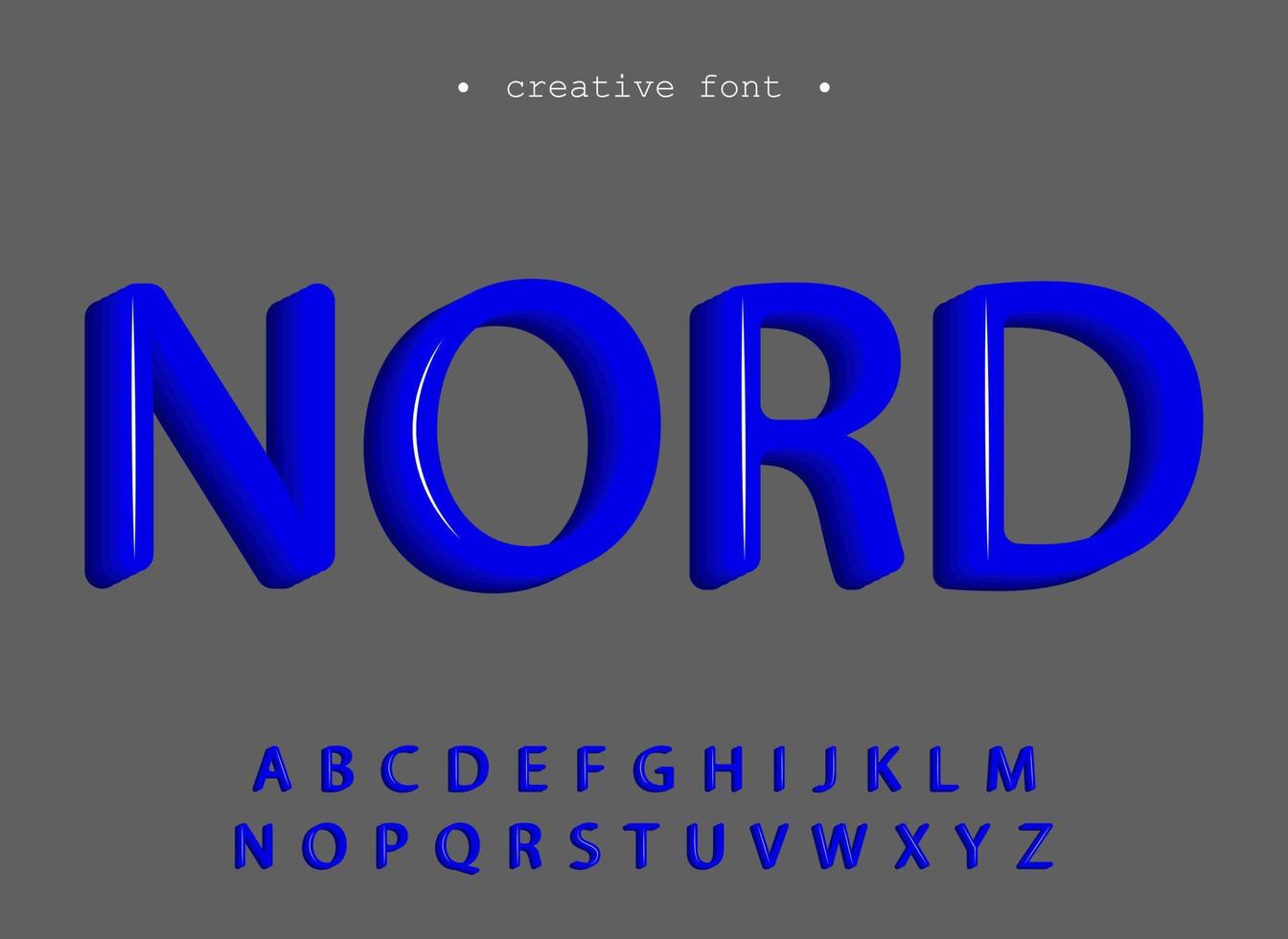
Abstract blue 3d typography symbol, vector set, latin typescript alphabet collection, creative graphic font for brand, simple design element, urban letter, text sign template. Modern logo lettering. Pro Vector